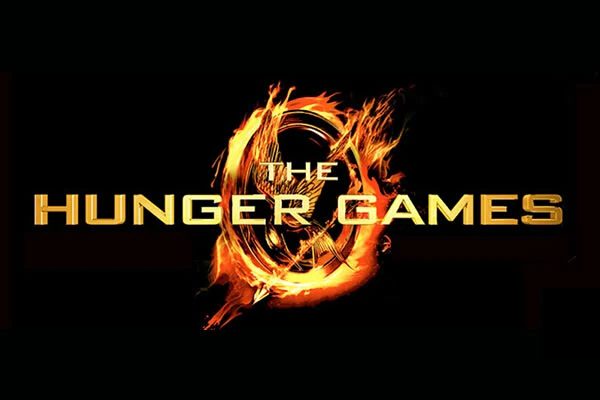
The name of the font that used in the original version of the Hunger Games logo is a typeface by the name of Bank Gothic Medium. It contains a full suite of uppercase, lowercase, numerals, and punctuation characters. Other options include Sui Generis Rg (created by the Typodermic Fonts Inc.) and Hunger Games (by Jordan Seth) which is a fan created font that also looks alot like the original logo lettering. All x3 of these fonts are available for download below.